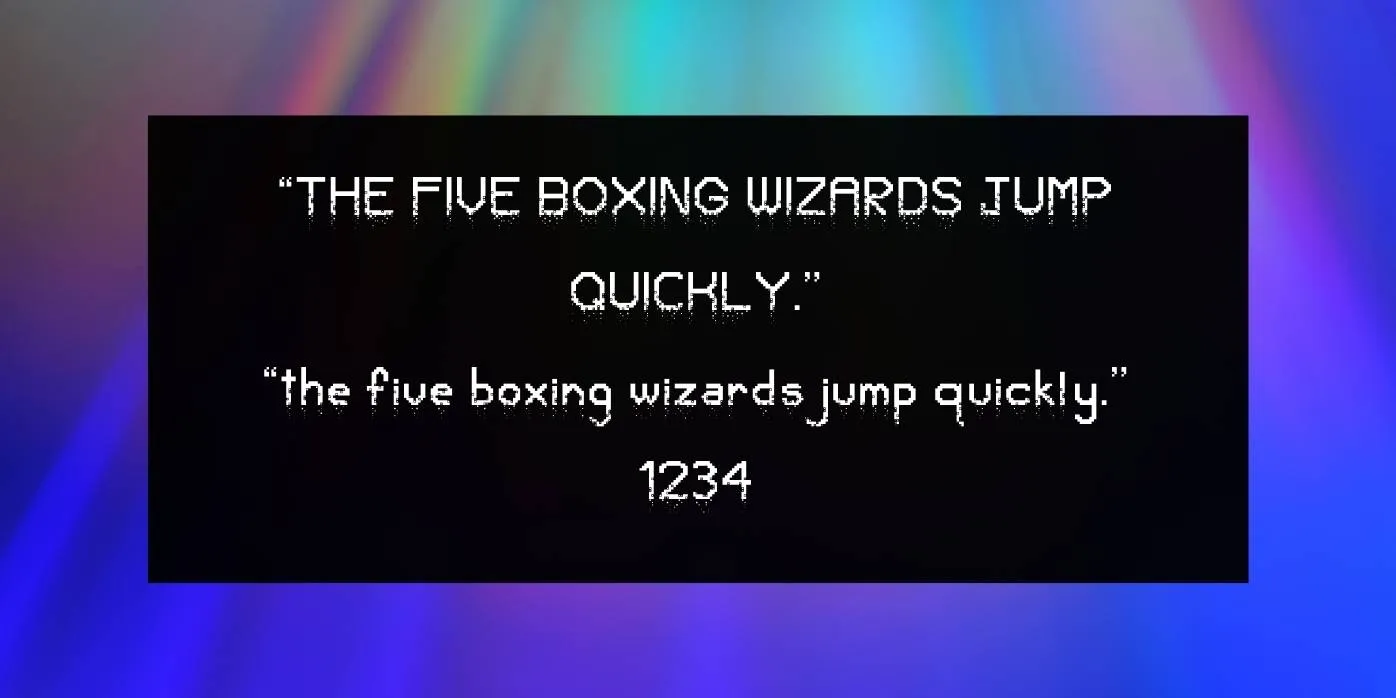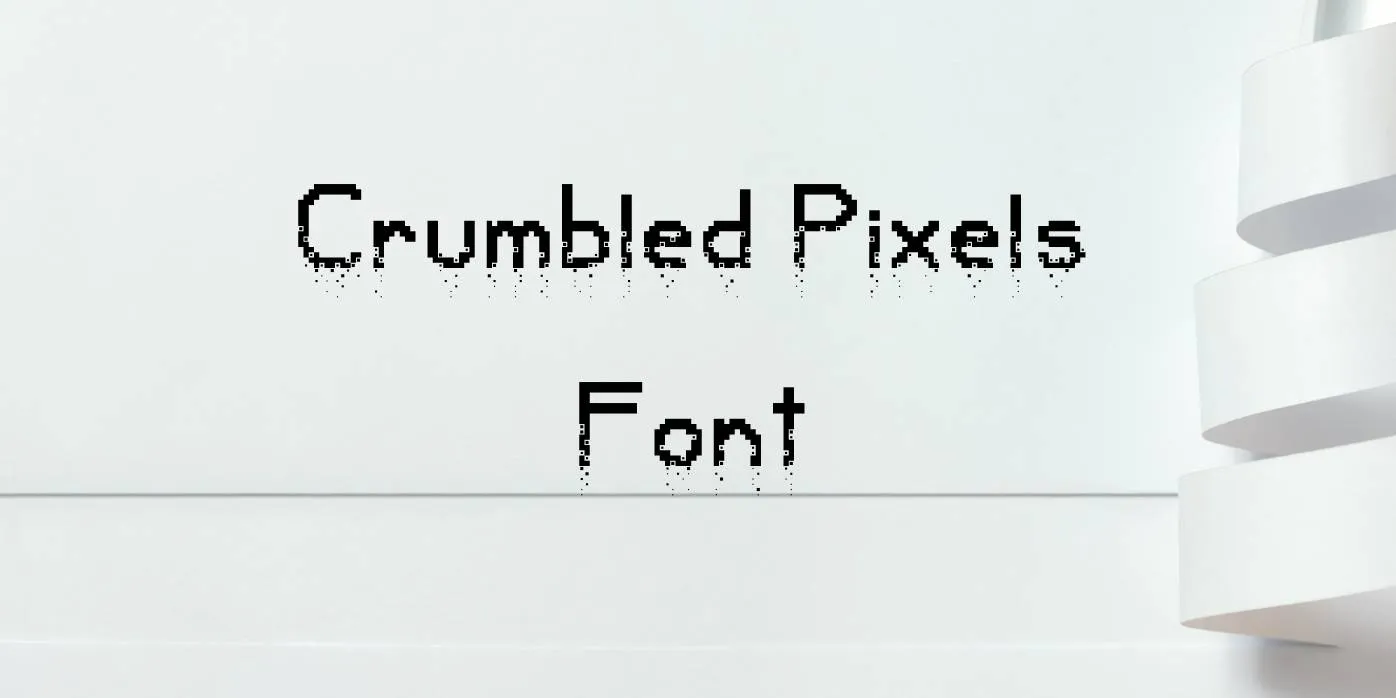
Crumbled Pixels Font
We discuss detailed information on Crumbled Pixels Font. It is a very unique and different font that was designed by Alyssa Diaz. It contains 73 characters and 1024 units per Em. It allows embedding rights to preview and print.
The weight of the font is Medium(light) and the width of the font is medium (regular). Mac style supported by this font is Bold. The patterned nature of this font is often. The direction of this font is always left to right including neutrals.